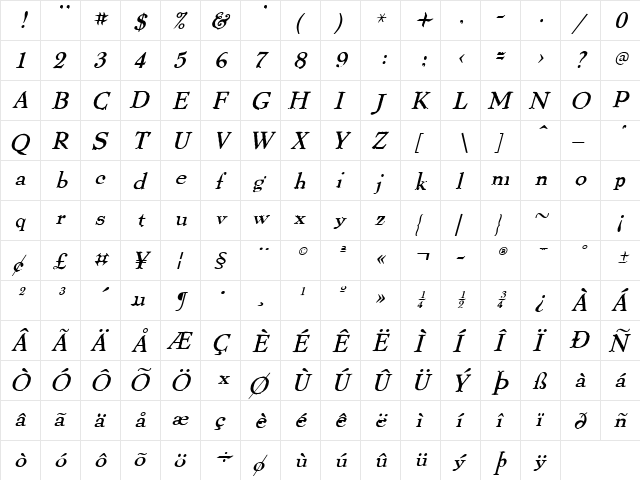
Thomas Paine Italic
Design Context for Thomas Paine Typeface
Thomas Paine offers clean, dependable letterforms without strong stylistic allegiance, making it a practical choice for designers who need flexibility. Its italic angle brings a sense of urgency and motion to the letterforms.
Pro Tip: Try Thomas Paine for annotation and caption copy alongside an upright companion — the contrast in angle creates a dynamic but ordered typographic system.